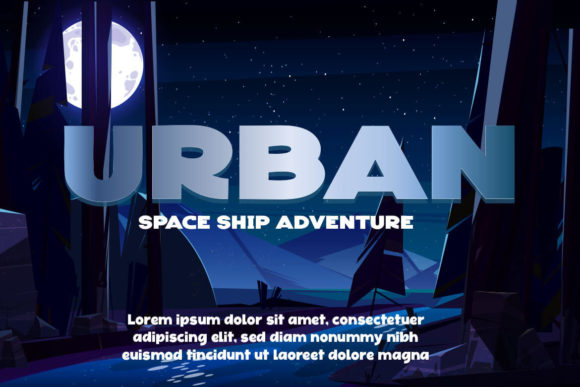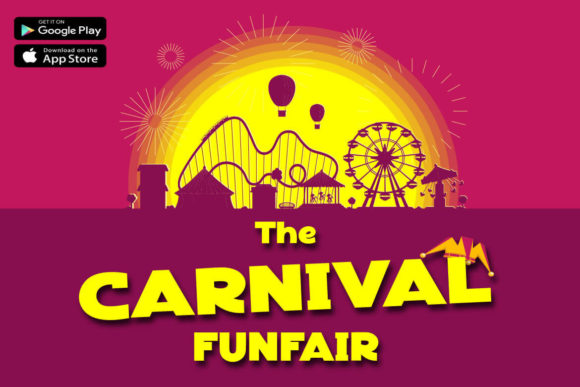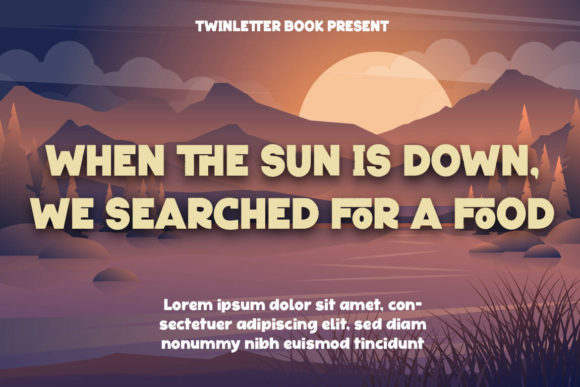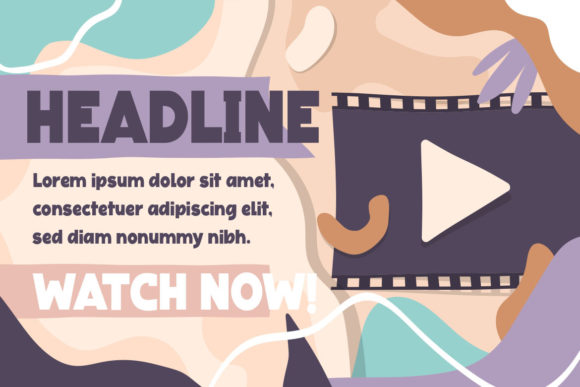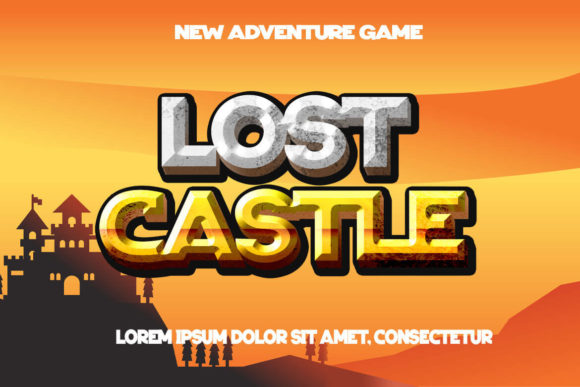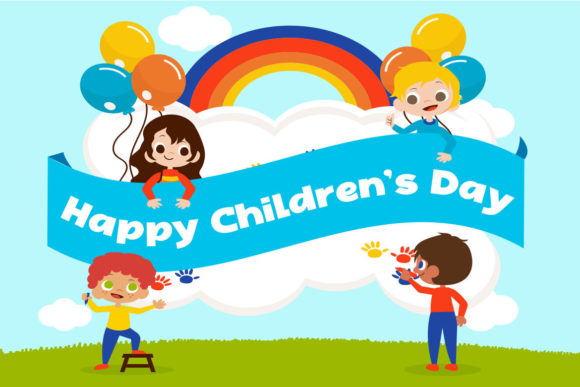
Unleash Your Creativity with the Black Foroth Font
You’ve spent hours brainstorming, sketching, and perfecting your design, and finally, you’re ready to add that special touch that sets it apart. You want something bold, something eye-catching, and something that exudes confidence. This is where the Black Foroth Font comes in – a cool, bold, and thick lettered display font that’s sure to elevate your crafting ideas to the next level.
Whether you’re creating cards, branding, labels, or anything in between, the Black Foroth Font is the perfect addition to your toolkit. Its versatility and unique style make it a valuable asset for designers looking to add a touch of sophistication and elegance to their work. By incorporating the Black Foroth Font into your designs, you’ll be able to create stunning visuals that command attention and leave a lasting impression.
Key Features of Black Foroth Font
- Unique Characteristics: The Black Foroth Font features a bold and modern design, with clean lines and geometric shapes, making it ideal for use in digital products, packaging, and branding.
- Kerning and Ligatures: The font includes advanced kerning and ligature pairs, ensuring smooth and professional text rendering, even in complex layouts and long blocks of text.
Review of Black Foroth Font
I recently had the chance to work with the Black Foroth Font, and I must say it’s a fascinating addition to any design project. Here are my thoughts on what works well and what doesn’t:
- Unique Aesthetics: The Black Foroth Font has a bold, industrial look that’s sure to grab attention. It’s perfect for designs that require a touch of edginess.
- Highly Legible: Despite its bold appearance, the font is surprisingly legible, making it suitable for a wide range of text-based applications.
- Customization Options: The font family comes with multiple weights and styles, allowing designers to fine-tune their designs to suit their needs.
- Limited Script Support: Unfortunately, the Black Foroth Font lacks script support, which can make it less suitable for designs that require a more organic feel.
- Overuse Risk: The font’s bold, attention-grabbing nature can make it prone to overuse, which can lead to design fatigue.
Overall, I’d say the Black Foroth Font is a solid addition to any designer’s toolkit. While it may have its limitations, its unique aesthetic and high legibility make it a great choice for the right projects. With careful use and consideration, it can add a touch of sophistication and edginess to even the most mundane designs.
The Black Forth Font is ideal for creating bold, modern designs. It’s commonly used in:
– Marketing materials (brochures, flyers, etc.)
– Digital signage
– Print materials (business cards, letterheads, etc.)
To get the most out of the Black Forth Font, use it in combination with other bold, modern fonts. Experiment with different font sizes and colors to create visually appealing designs. Additionally, use the font in conjunction with imagery and graphics to add depth and interest to your designs.